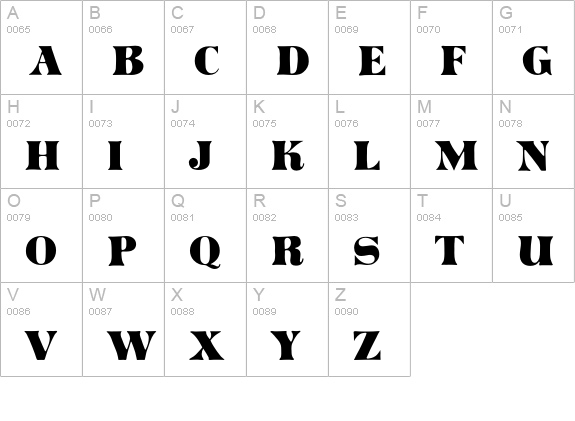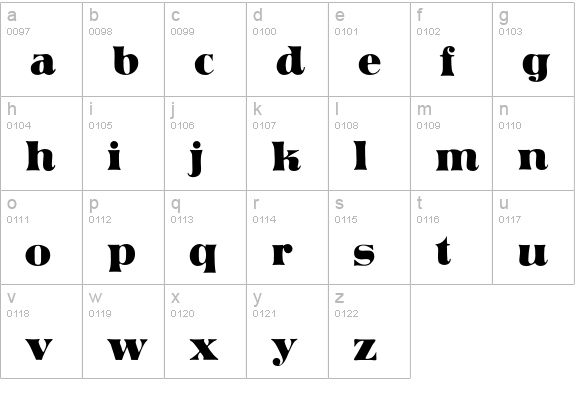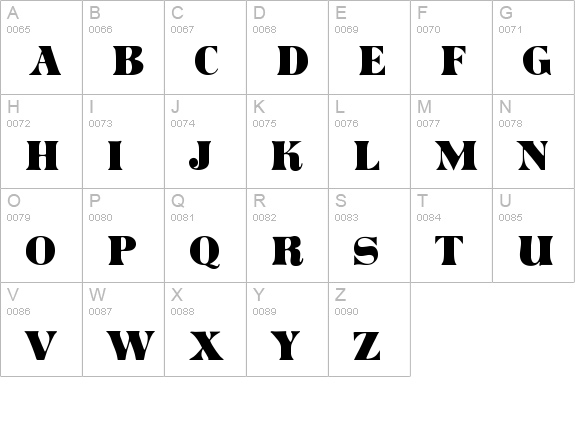
Introducing Sarajevo font, a stunning typeface that embodies the unique blend of modernity and tradition. This exquisite font captures the essence of the historic city of Sarajevo, known for its rich cultural heritage and captivating beauty. Sarajevo's elegant and flowing letterforms exude a sense of sophistication and grace, making it perfect for a wide range of design projects. Whether you're creating a logo, branding materials, or editorial layouts, this font will add a touch of timeless beauty to your work. But what truly sets Sarajevo font apart is its versatility and accessibility. Designed with utmost care and attention to detail, this font is not only visually appealing but also highly legible, ensuring a seamless reading experience across various platforms and mediums. And the best part? Sarajevo font is freely available to download at FontsMarket.com. With just a few clicks, you can bring this exceptional font into your design arsenal and unlock a world of creative possibilities. Whether you're a professional designer or a passionate hobbyist, Sarajevo font offers you the freedom to express your artistic vision without any limitations. So why wait? Explore the beauty of Sarajevo font today and elevate your designs to new heights. Download it for free at FontsMarket.com and embark on a captivating typographic journey that will leave a lasting impression on your audience.